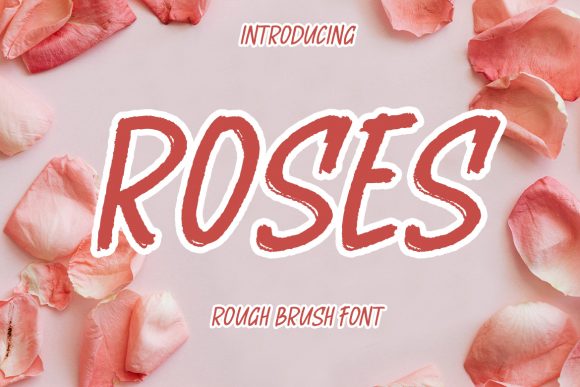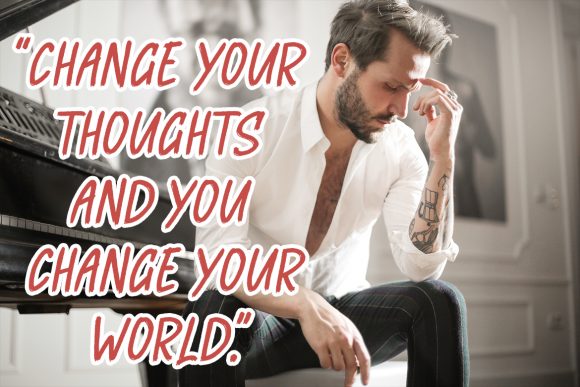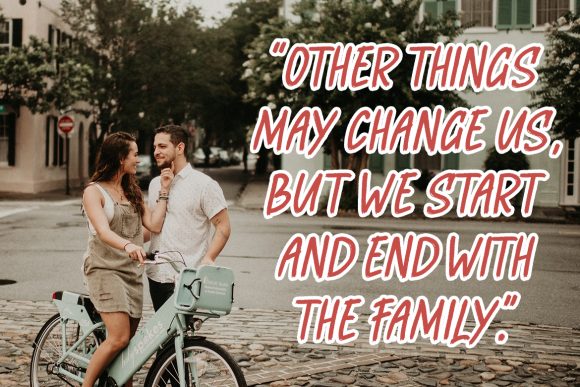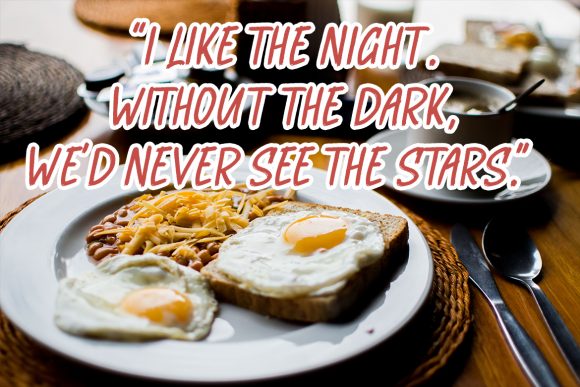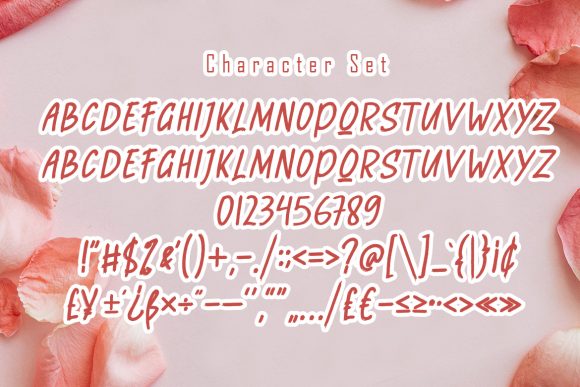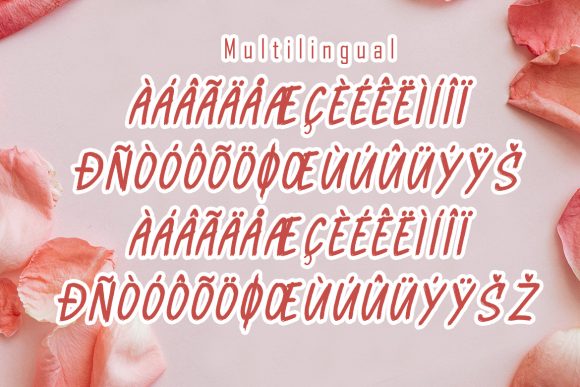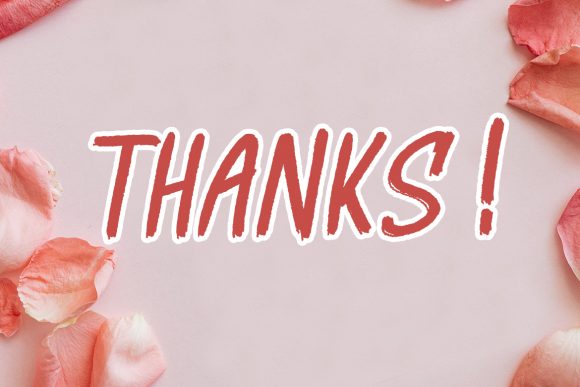
Roses Font
About Roses Font
Roses is a simple brushed handwritten font. Readable, natural and down to earth, this font will fit a variety of informal designs.